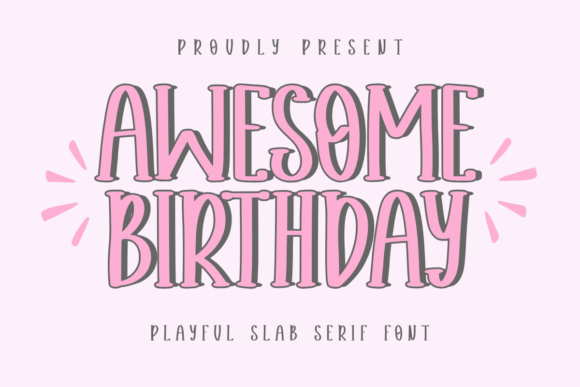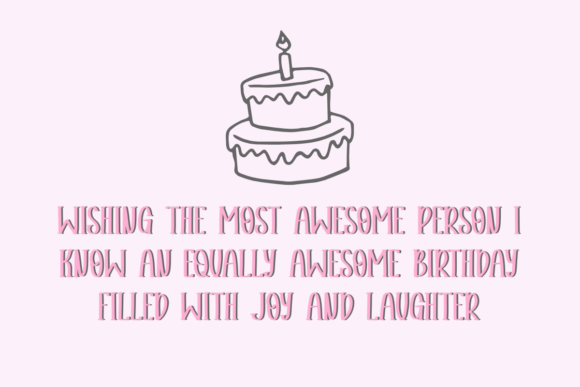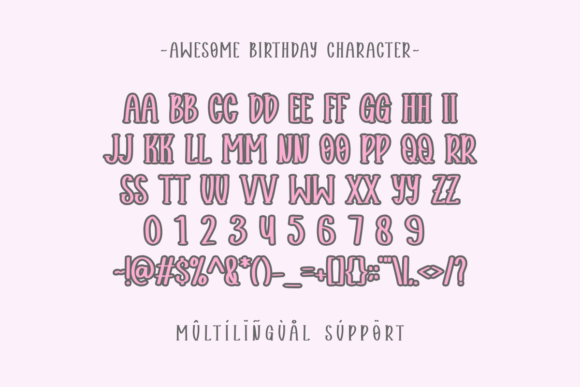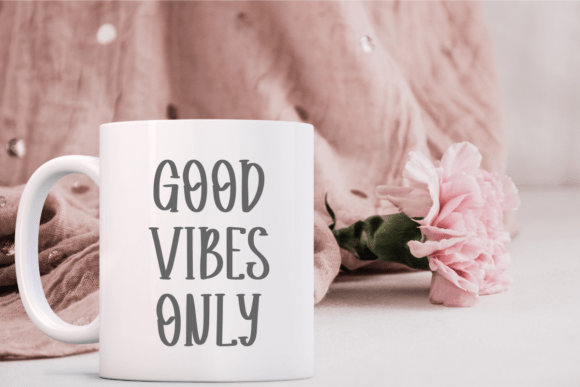
Awesome Birthday Font
About the Awesome Birthday Font
Explore the possibilities with Awesome Birthday Font, a font that offers both beauty and functionality. Awesome Birthday is a cute and playful slab serif font, perfect for planners, stickers, cards, quotes, and craft projects. Ideal for creative moms who love DIY, journaling, and Cricut crafts!
Its playful slab serifs make it highly effective for headlines, short-form text on packaging, and eye-catching elements in social media graphics. However, its charm is less suited to body text or lengthy paragraphs where readability suffers. Avoid using it in UI or situations requiring high levels of screen legibility.
Awesome Birthday’s overall personality is cheerful and approachable, making it a great choice for brands targeting a young, creative audience, or projects needing a friendly, handmade aesthetic (think children’s books, craft businesses, or celebratory events).
Pairing it with a clean sans-serif like Open Sans for body text provides excellent contrast, while a script font such as Great Vibes adds a touch of whimsy for logos or special elements. A more geometric sans-serif, like Montserrat, could also work for a modern twist.
Awesome Birthday Font Usage Examples
Awesome Birthday Font Example